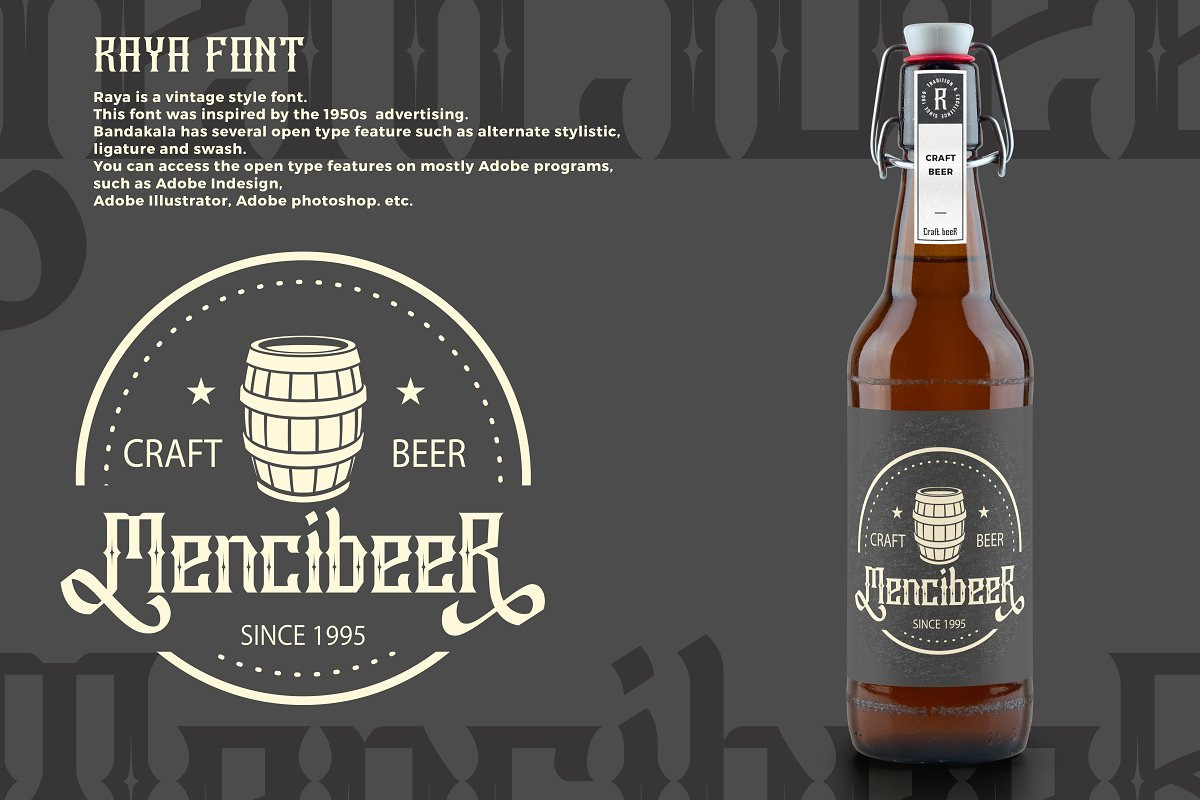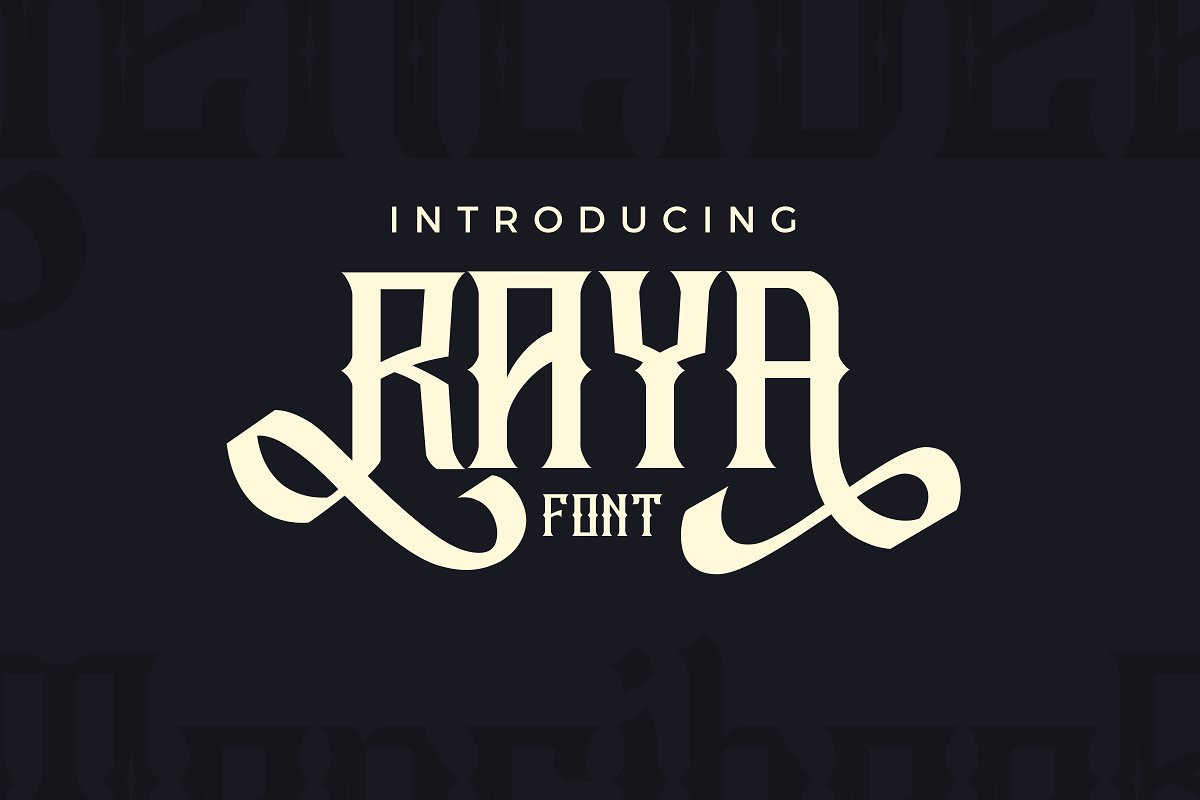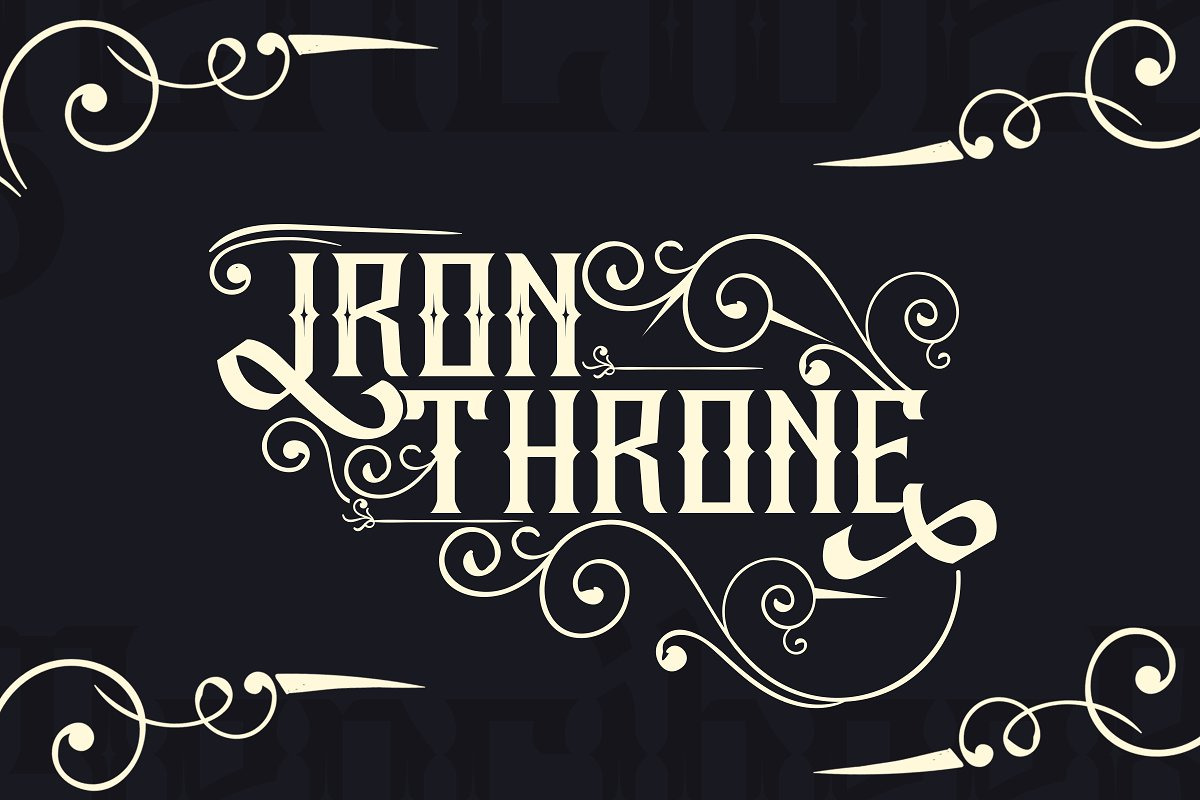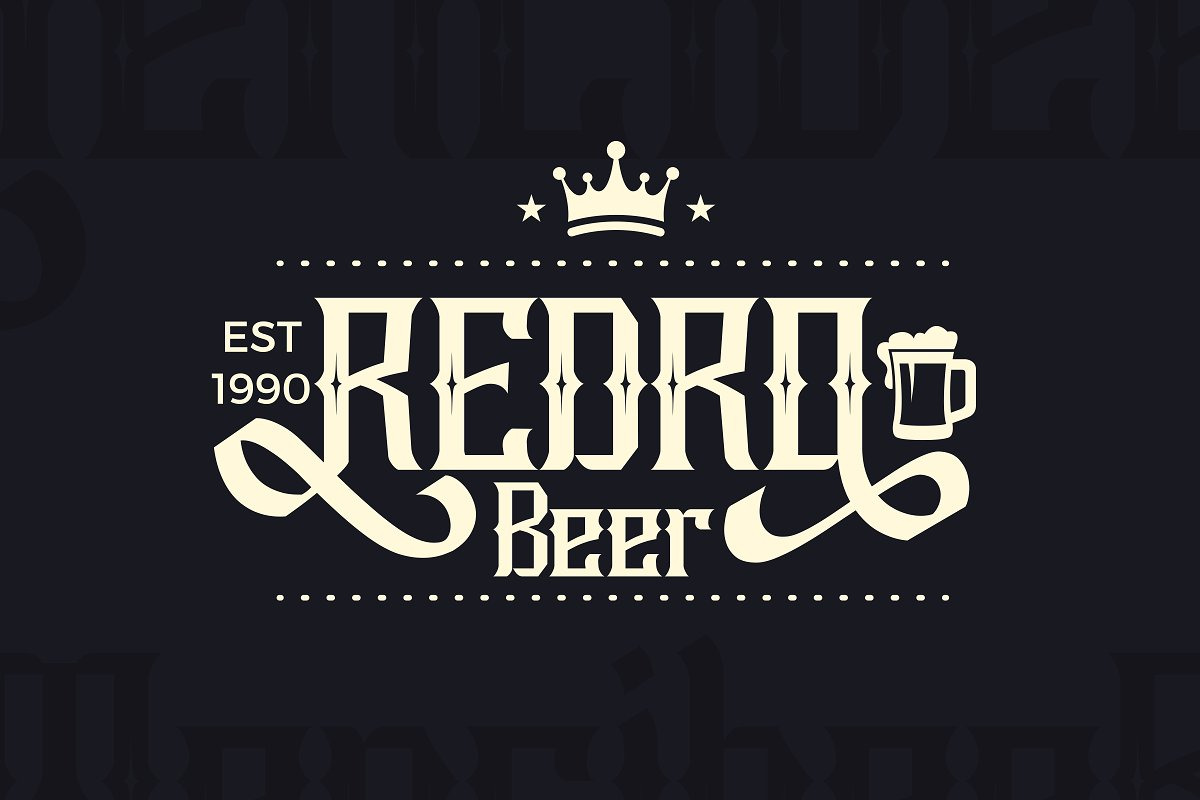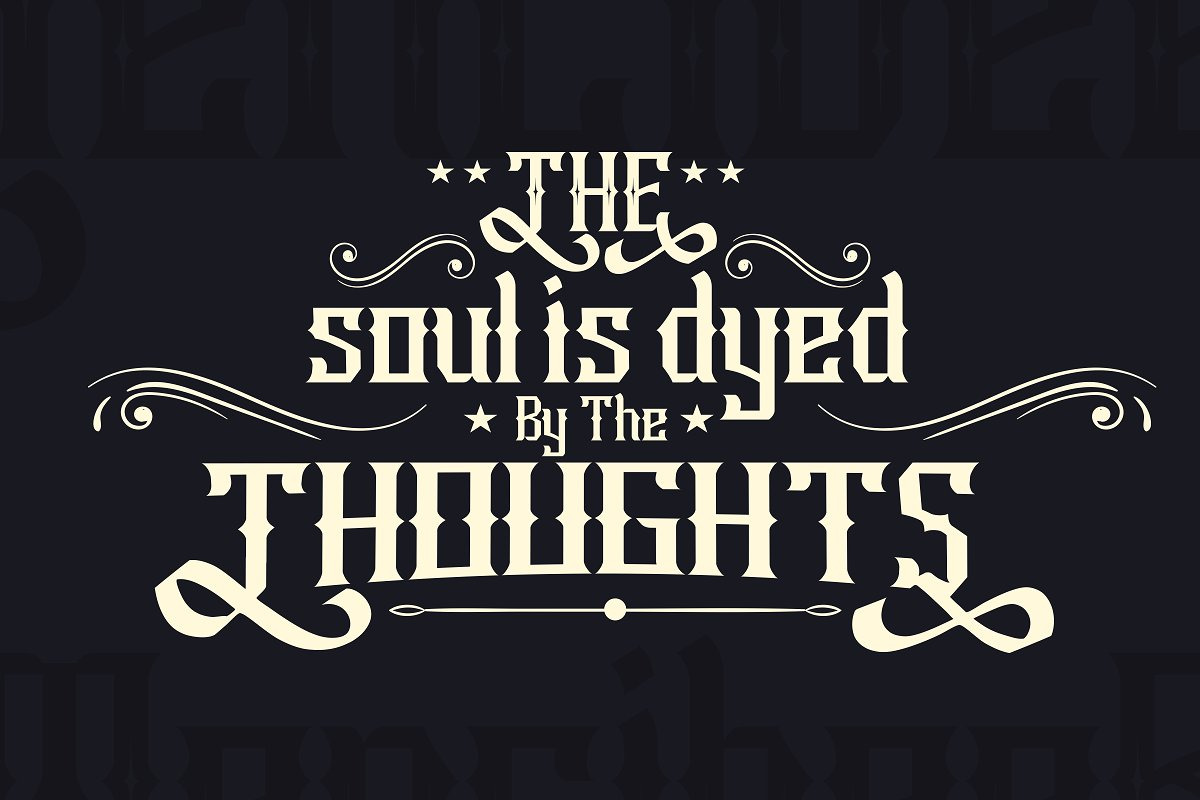
Raya Vintage Swash Font
A font that is inspired by vintage decorative letters or cards. With ornamental vintage style and lot of swashes you can create realistic headers. It works beautifully for personal branding and advertising.